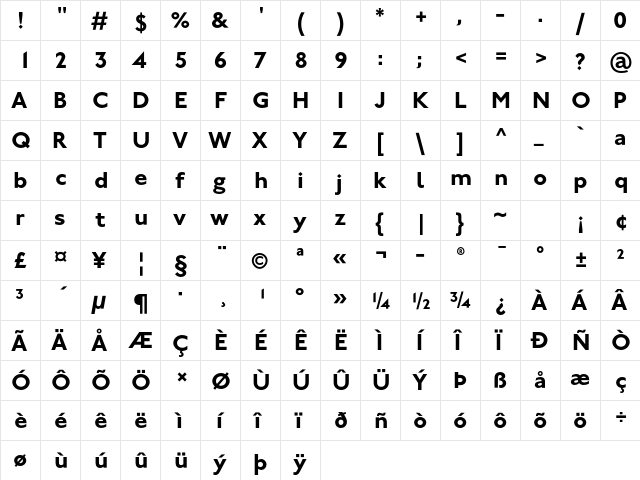
Johnston ITC Std Bold Font Preview
Johnston ITC Std Bold
Johnston ITC Std Bold Font Details
| Designer | Dave Farey and Richard Dawson |
Design Context for Johnston ITC Std Typeface
Johnston ITC Std takes a measured approach to typography — its balanced proportions and neutral character make it a reliable workhorse for both digital and print work. Its bold stroke weight gives it real presence on the page.